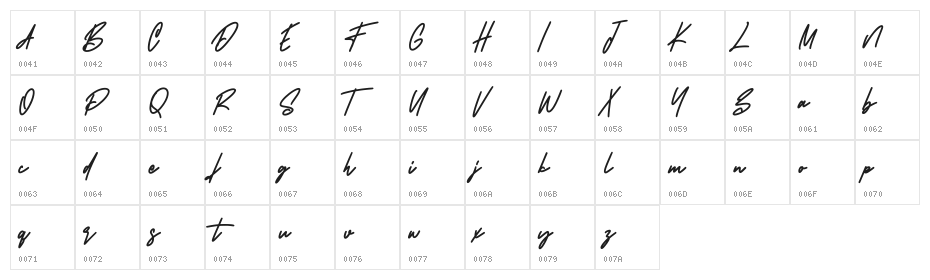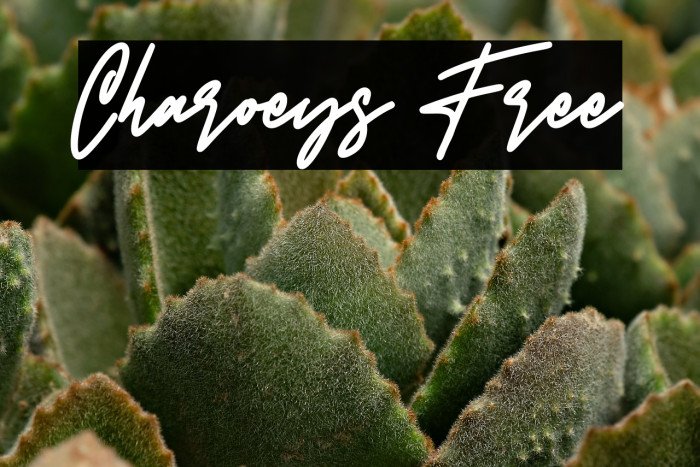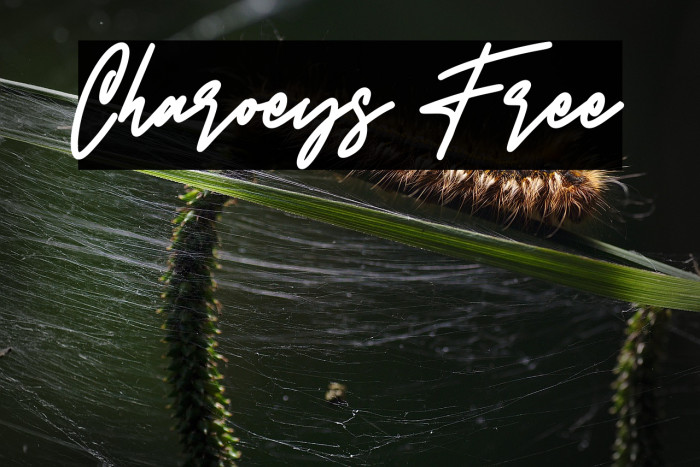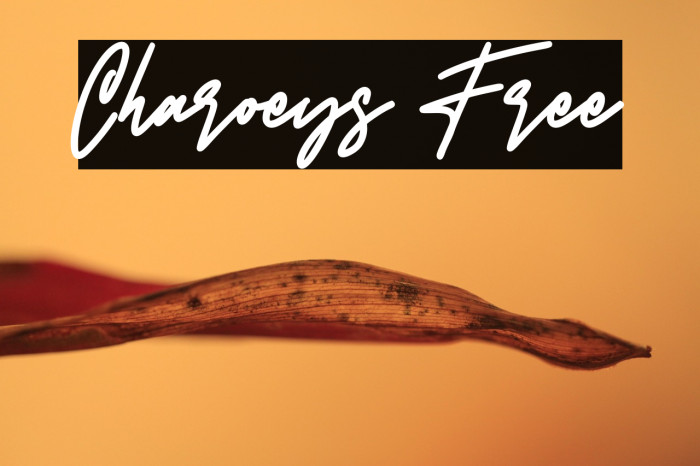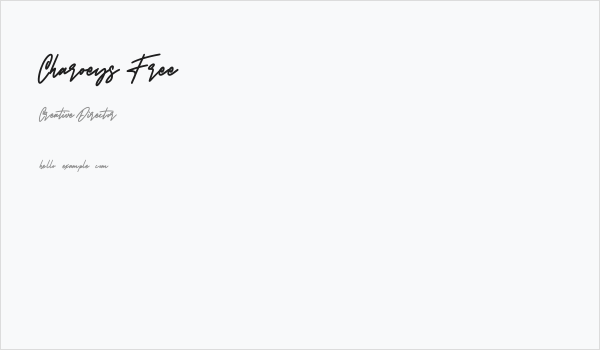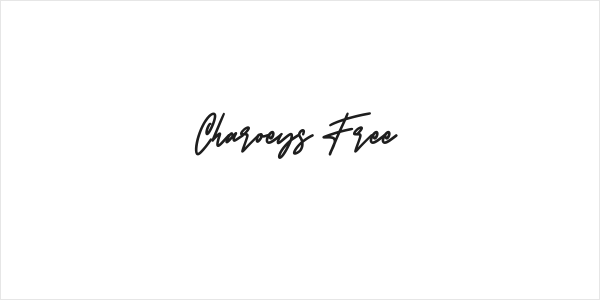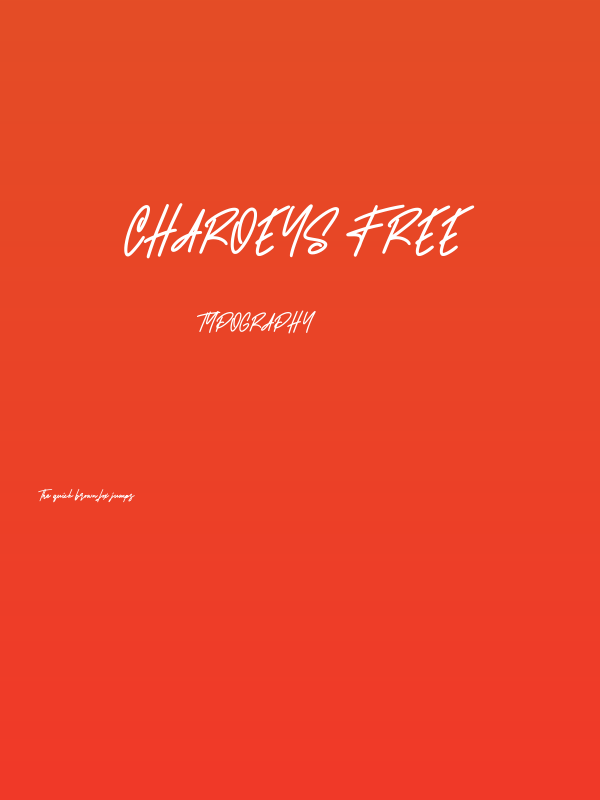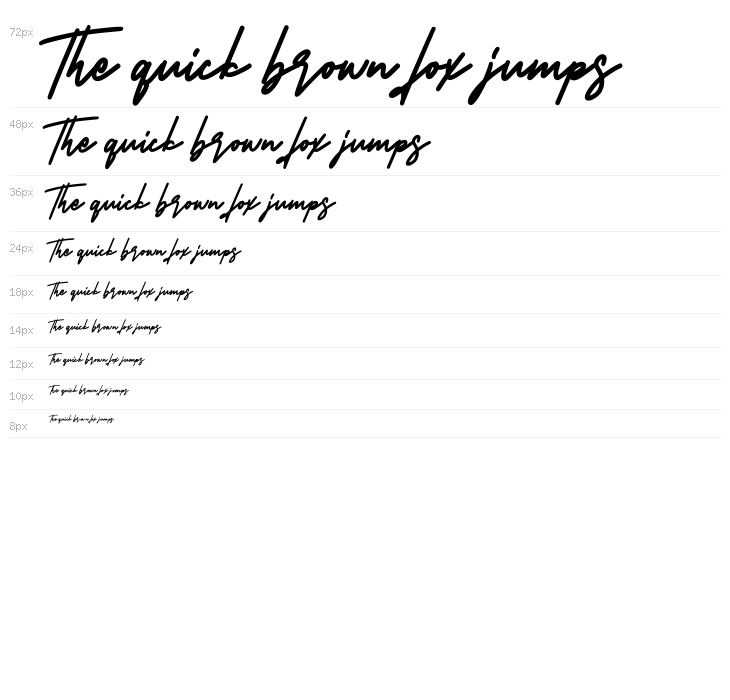
Charoeys Free Font
Charoeys Free Description
This font features a dynamic and expressive handwritten style, characterized by its fluid and cursive letterforms. The strokes are bold and confident, with a slight slant that adds to its energetic appearance. The uppercase letters are particularly striking, with exaggerated loops and curves that give them a unique flair. The lowercase letters maintain a consistent flow, complementing the uppercase with their smooth and connected strokes. This font exudes a sense of creativity and spontaneity, making it ideal for projects that require a personal and artistic touch.
| Use Case | Logos, Invitations, Creative design |
| Proposed Projects | Ideal for branding, logos, invitations, and creative design projects that require a personal touch. |